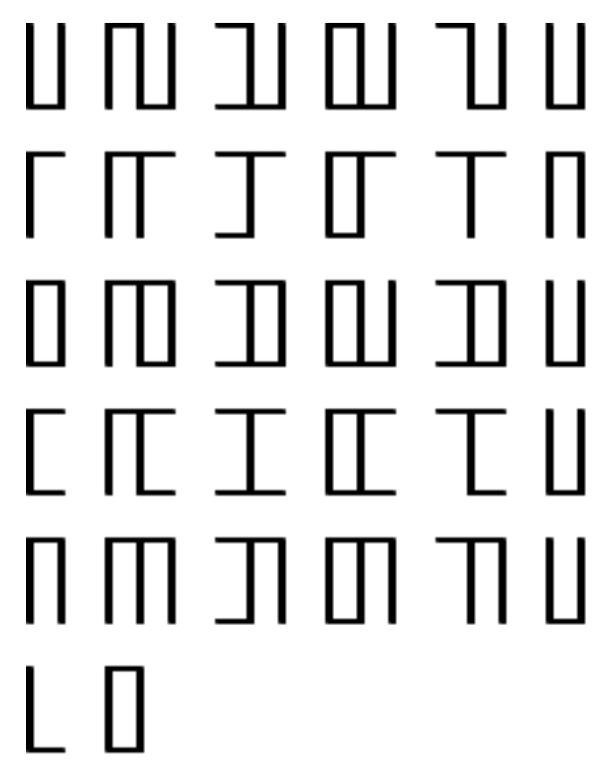
It looks like j and f are the same, no other letters seem to overlap like that...
Attached is the a through z separated every 6
Shadow Codeby SleepyMouse